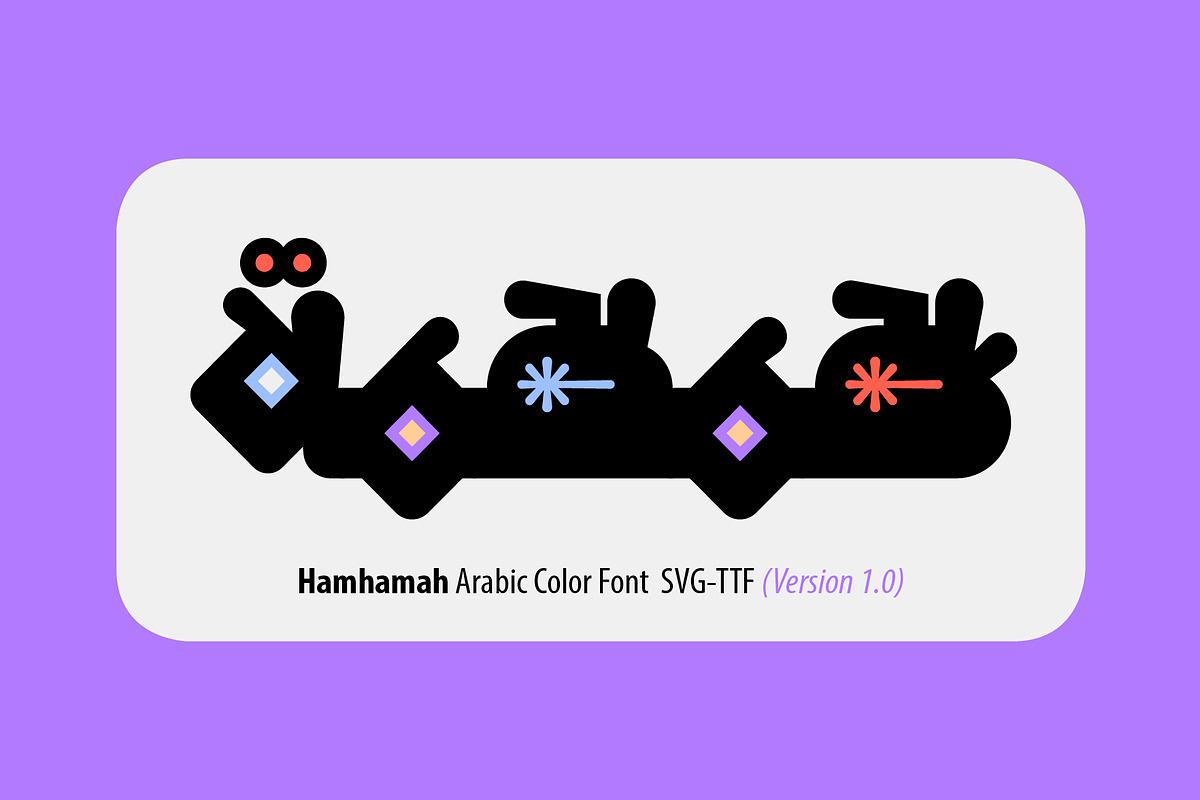
Hamhamah - Arabic Color Font Free Download
Hamhamah Arabic Color Font Free Download
Hamhamah Arabic Color Font Free Download is a vibrant and artistic typeface that blends traditional Arabic calligraphy with modern color-filled design. Featuring intricate letterforms with rich, bold colors, this font is perfect for Arabic branding, posters, packaging, invitations, and any creative project that needs an expressive, colorful touch.
Whether you're designing for a cultural event, creating a unique brand identity, or adding a modern flair to traditional typography, Hamhamah adds elegance and color to your designs. It’s the ideal font for those looking to combine artistic tradition with modern design in their work.